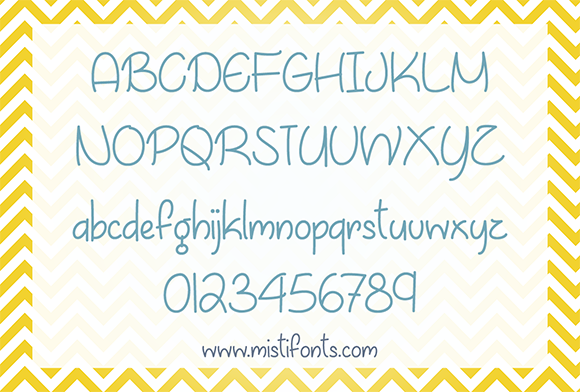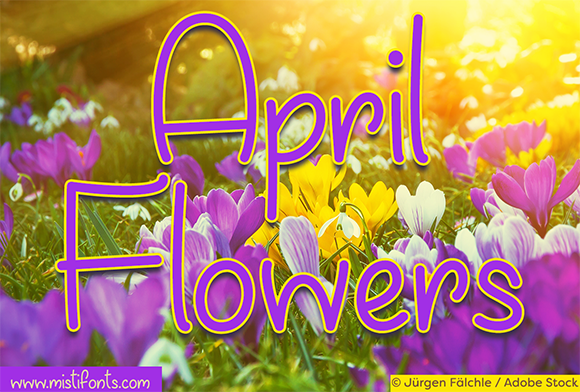
Introducing April Flowers Font: The Perfect Addition to Your Design Projects
Are you a designer or crafter looking for a unique and charming font to add a personal touch to your projects? Look no further than April Flowers Font! This adorable, handwritten font is perfect for a variety of craft and design projects, and we’re excited to share its features and benefits with you.
What is April Flowers Font?
April Flowers Font is a carefully crafted, handwritten font that exudes a sense of playfulness and charm. Its delicate, cursive letters are designed to add a touch of whimsy and personality to your designs, making it perfect for a wide range of projects, from DIY crafts to professional design work.
Key Features of April Flowers Font
- Cute and Handwritten: April Flowers Font boasts a unique, handwritten style that adds a personal touch to your designs.
- Perfect for Crafts and Design Projects: Whether you’re working on a DIY project or a professional design, this font is sure to add a touch of charm and personality.
- Easy to Read: Despite its playful nature, April Flowers Font is easy to read, making it perfect for use in a variety of contexts, from titles and headings to body text.
- Versatile: This font is suitable for a wide range of projects, including but not limited to: scrapbooking, card making, journaling, and digital design.
Uses for April Flowers Font
So, what can you use April Flowers Font for? The possibilities are endless! Here are a few ideas to get you started:
- Scrapbooking: Add a personal touch to your scrapbook pages with April Flowers Font. Use it to title your pages, add journaling, or create custom captions for your photos.
- Card Making: Create one-of-a-kind greeting cards for special occasions using April Flowers Font. Its playful, handwritten style is sure to make your cards stand out.
- Journaling: Add a touch of personality to your journal pages with April Flowers Font. Use it to create headings, titles, or even write out your daily or weekly reflections.
- Digital Design: April Flowers Font is also perfect for digital design projects, such as creating social media graphics, blog posts, or website headers.
Tips for Using April Flowers Font
To get the most out of April Flowers Font, here are a few tips to keep in mind:
- Pair it with Other Fonts: Experiment with pairing April Flowers Font with other fonts to create a unique and visually appealing design.
- Use it in Moderation: While April Flowers Font is certainly eye-catching, it’s best used in moderation. Try using it for headings or titles, and a more straightforward font for body text.
In conclusion, April Flowers Font is a charming, handwritten font that’s perfect for designers and crafters looking to add a personal touch to their projects. With its cute and playful style, ease of use, and versatility, it’s sure to become a favorite in your design toolkit. So why wait? Download April Flowers Font today and start creating your own unique and eye-catching designs!